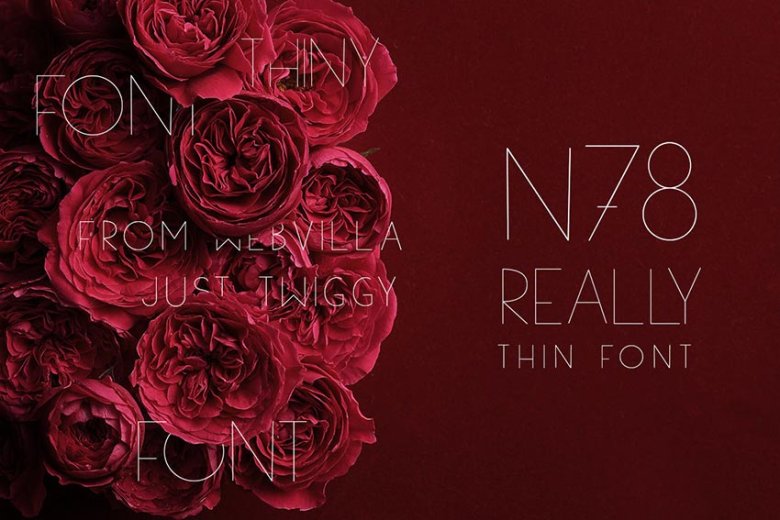
N78 Thin Font
N78 – really thin font – Ideal for business card, titles, book cover, presentations, invitations, blogs, handmade craft items, scrap booking, printed paper items and more.